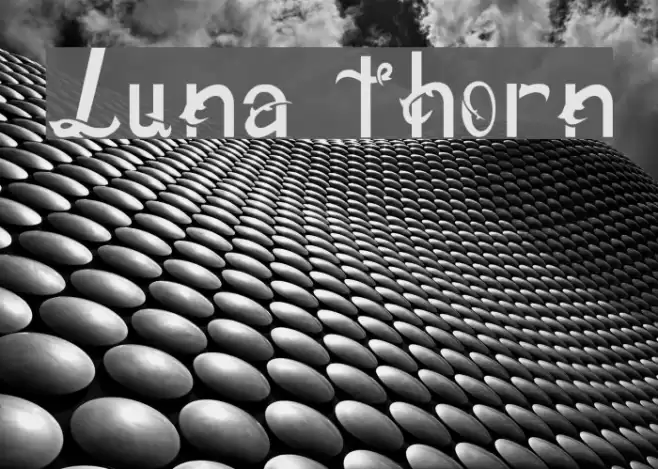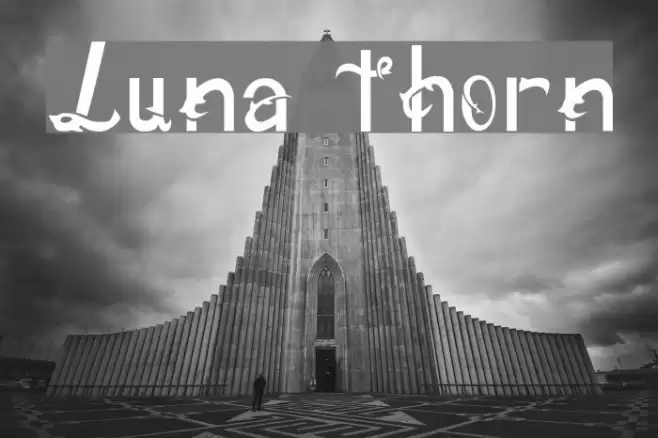
Luna thorn Font
Luna thorn Description
This font features a unique and whimsical design with decorative elements that resemble thorns or vines intertwined with the characters. The uppercase letters are bold and striking, with intricate details that add a sense of elegance and fantasy. The lowercase letters maintain the same decorative style, creating a cohesive look throughout the font. Numbers and special characters are also designed with the same attention to detail, making them stand out. The overall appearance is both artistic and playful, suitable for projects that require a touch of creativity and imagination.
A whimsical, decorative font with thorn-like embellishments from Uncategorized fonts.
- Proposed Projects: Ideal for fantasy-themed designs, book covers, invitations, and branding that requires a creative and artistic touch.